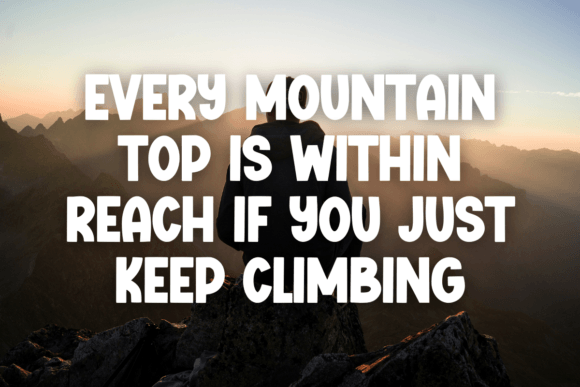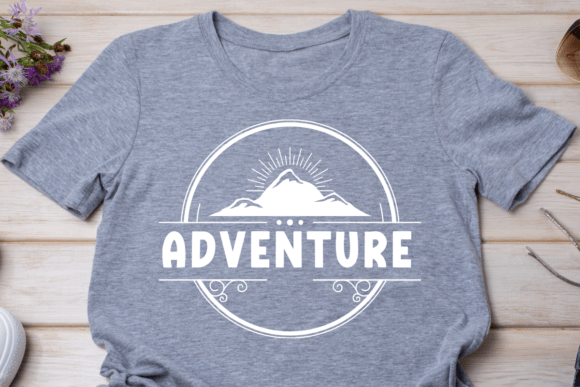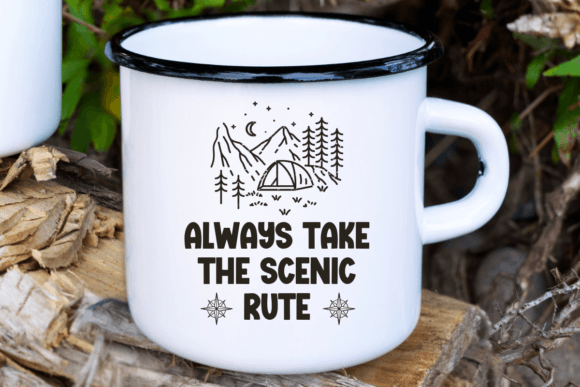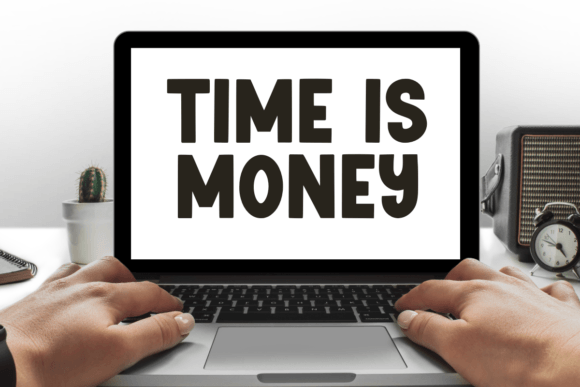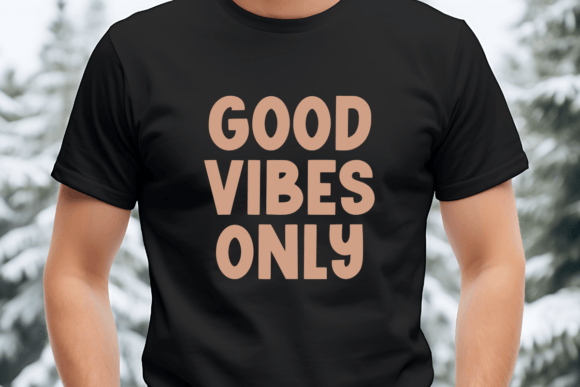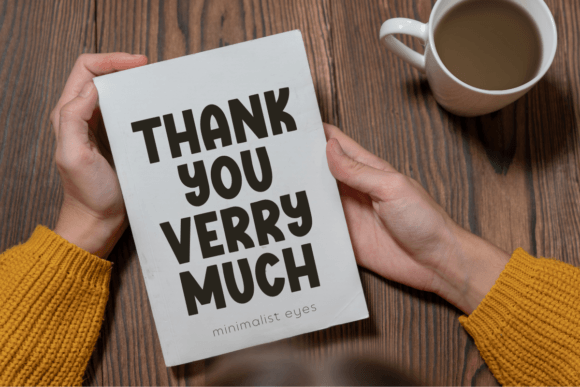
Discover the Delightful Camping Planner Font: A Perfect Addition to Your Creative Projects
Have you ever been in the middle of a design project, and suddenly, you’re stuck on finding the perfect font? I recall a recent experience where I was working on a fun Easter-themed party invitation, and my usual go-to fonts just weren’t cutting it. That’s when I stumbled upon the Camping Planner font, and it instantly became my new favorite! In this article, we’ll dive into the world of Camping Planner, exploring its features, uses, and what makes it an excellent addition to your font library.
A Personal Encounter with Camping Planner
I was brainstorming ideas for a client’s summer-themed party decorations when I came across the Camping Planner font. Its bold and playful display style immediately caught my attention. I knew right then and there that it was exactly what I needed to bring a friendly touch to the project. Whether you’re a designer, crafter, or creative hobbyist, this font is sure to inspire your next project.
An Honest Review of Camping Planner
- ✅ Bold and Playful Style: Camping Planner’s unique display font is perfect for making a statement in your designs.
- ✅ Versatility: This font is ideal for a wide range of projects, from fun party decorations to diary planners, and even clothing designs.
- ✅ Ease of Use: Camping Planner is easy to read and works well in both digital and print formats.
- ✅ OpenType Features: The font comes with a range of OpenType features, including glyphs and stylistic alternates, allowing for endless creative possibilities.
While Camping Planner is an excellent font, there are a few minor limitations to consider:
- 🤔 Limited Formality: Due to its playful nature, Camping Planner might not be the best fit for very formal or professional projects.
- 🤔 Legibility at Small Sizes: Like many display fonts, Camping Planner may not be as legible at very small font sizes.
The Backstory of Camping Planner
Camping Planner was designed with the intention of creating a bold, playful font that captures the essence of outdoor adventures and fun times. The designer aimed to craft a font that would be perfect for creative projects, party decorations, and personal planners. Inspired by the beauty of nature and the joy of camping, Camping Planner brings a friendly touch to any design.
Q: What type of projects is Camping Planner best suited for?
A: Camping Planner is ideal for fun projects, party decorations, diary planners, clothing designs, and any creative endeavor that requires a bold and playful touch.
Q: Does Camping Planner support OpenType features?
A: Yes, Camping Planner comes with a range of OpenType features, including glyphs and stylistic alternates, allowing for a high degree of customization in your designs.
Q: Is Camping Planner suitable for body text?
A: While Camping Planner is primarily a display font, it’s best used for headings and titles. For body text, you might prefer a font that’s easier to read at smaller sizes.